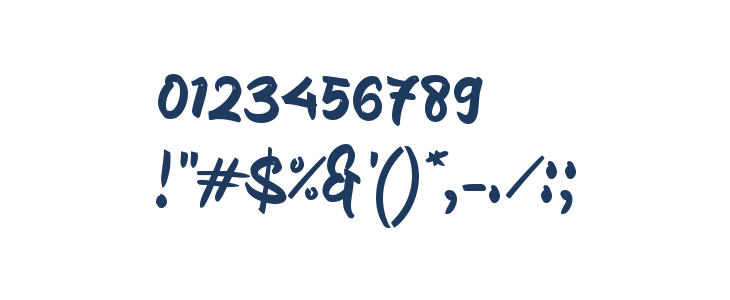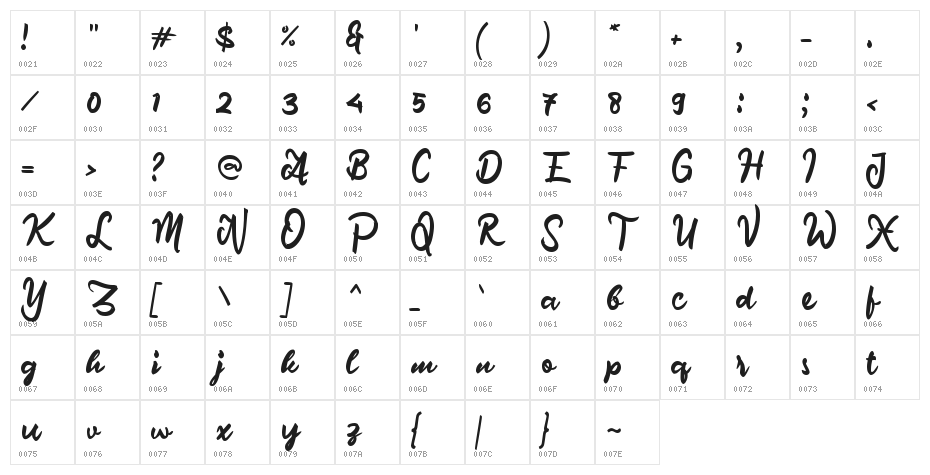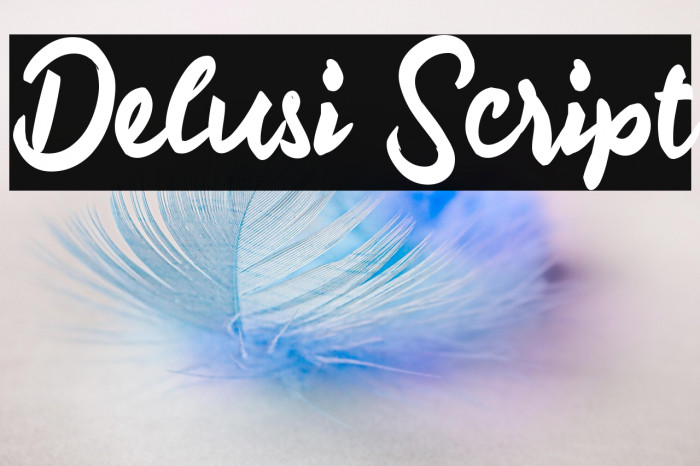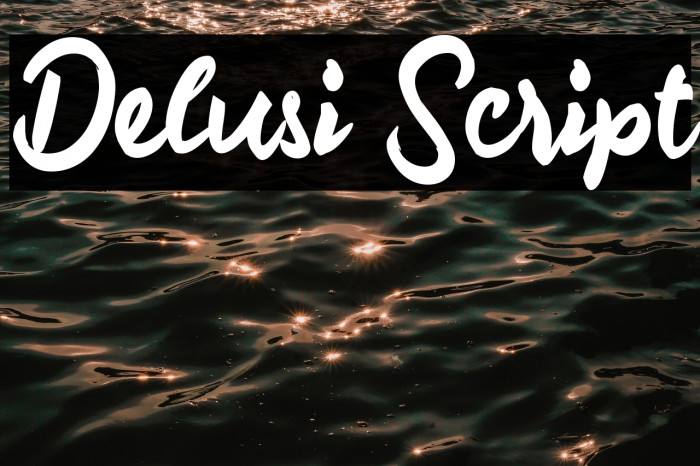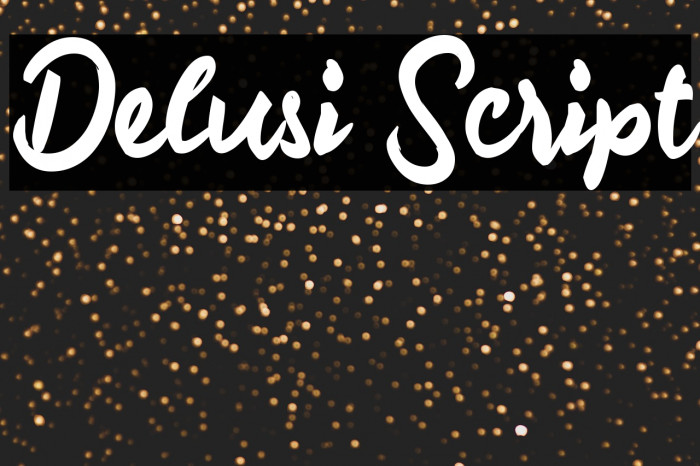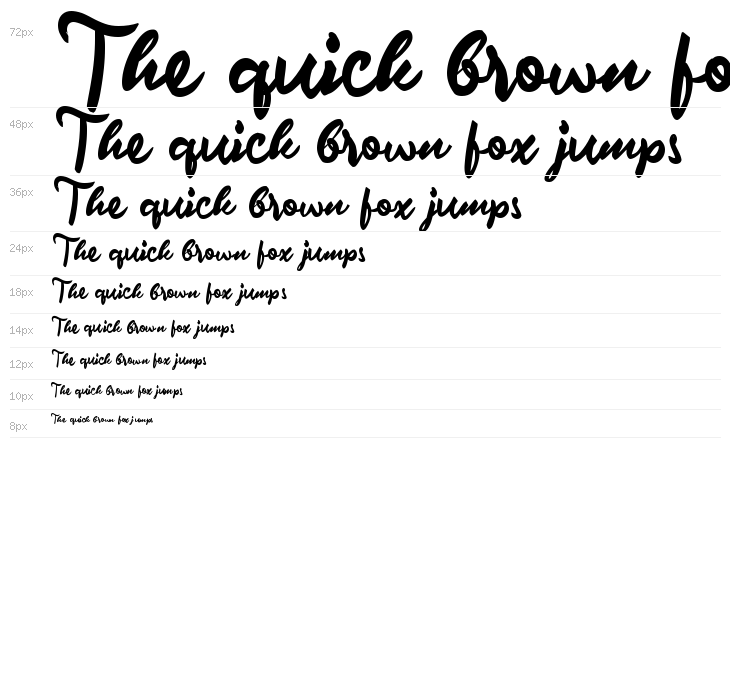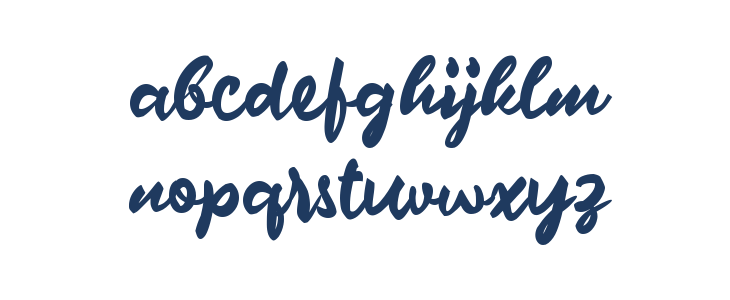
Delusi Script Font
Delusi Script Description
This script font exudes a playful and energetic vibe, characterized by its fluid and connected strokes. The uppercase letters are bold and slightly slanted, giving a sense of movement and dynamism. The lowercase letters maintain a consistent flow, with rounded edges and smooth curves that enhance readability while retaining a casual elegance. The numerals are distinct and easy to read, matching the overall style of the alphabet. Special characters are creatively designed, adding a unique flair to the font. This font is perfect for projects that require a personal touch, such as invitations, greeting cards, or branding materials.
| Proposed Projects | Ideal for invitations, greeting cards, branding materials, and creative projects requiring a personal touch. |